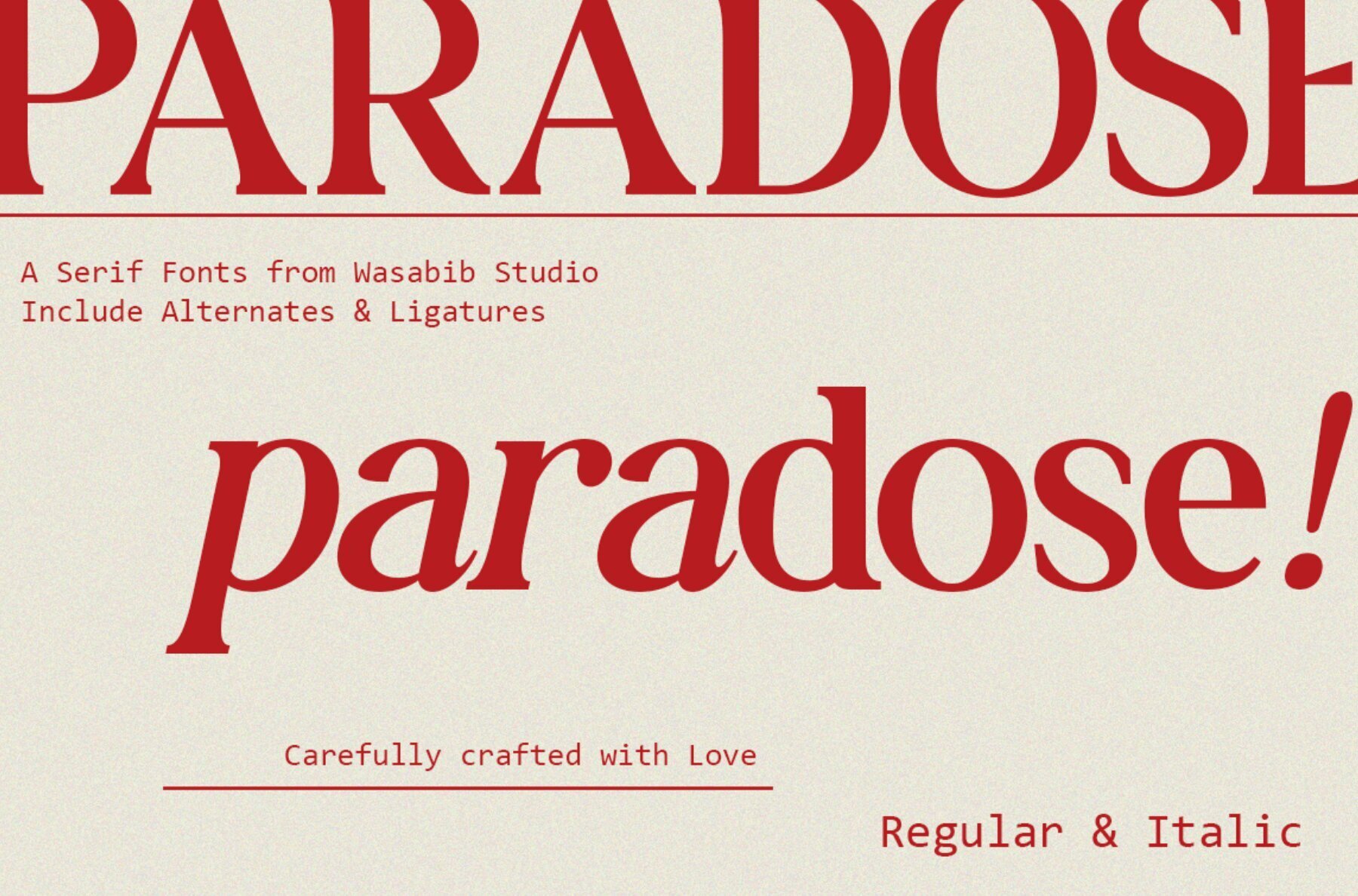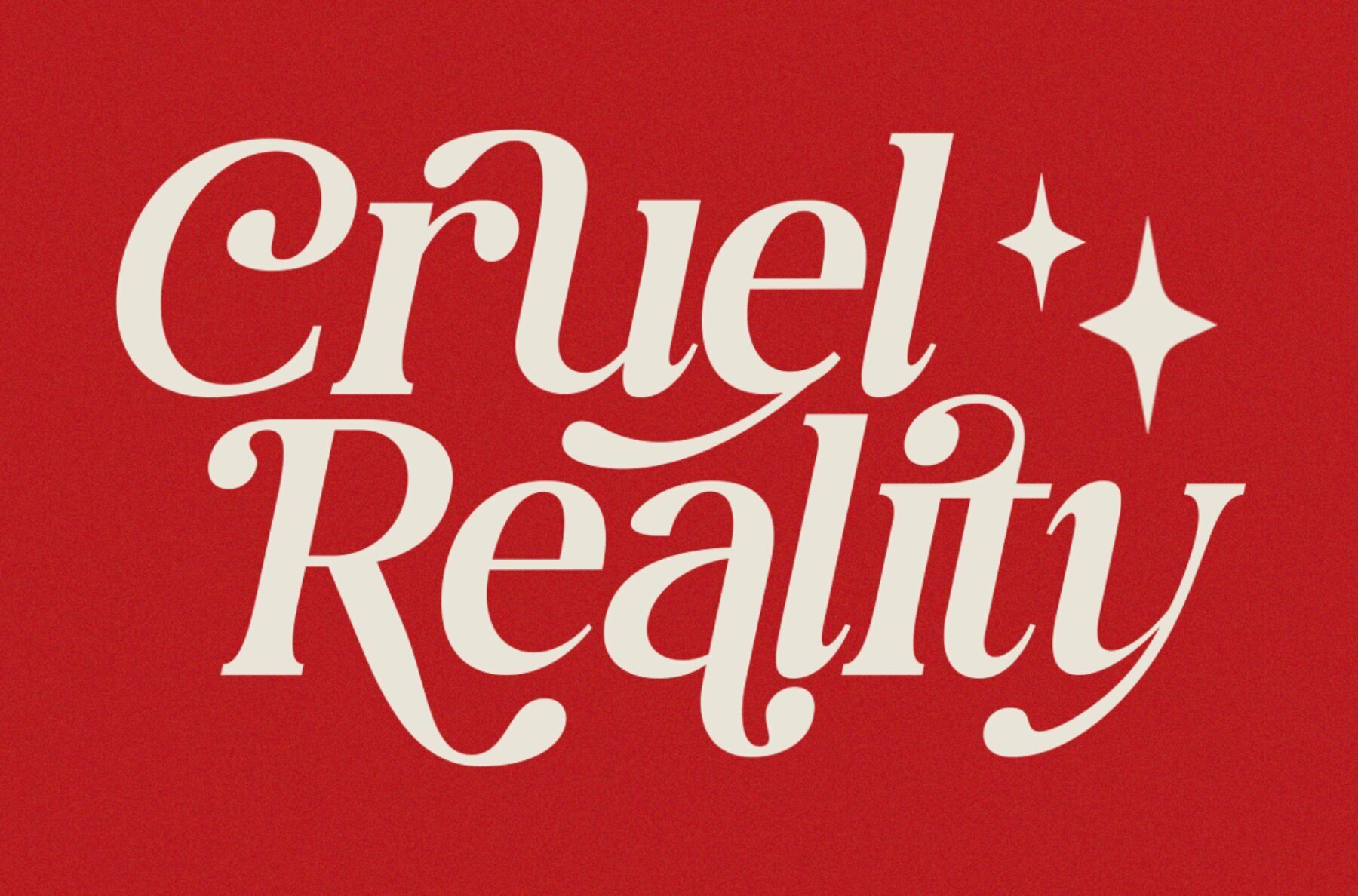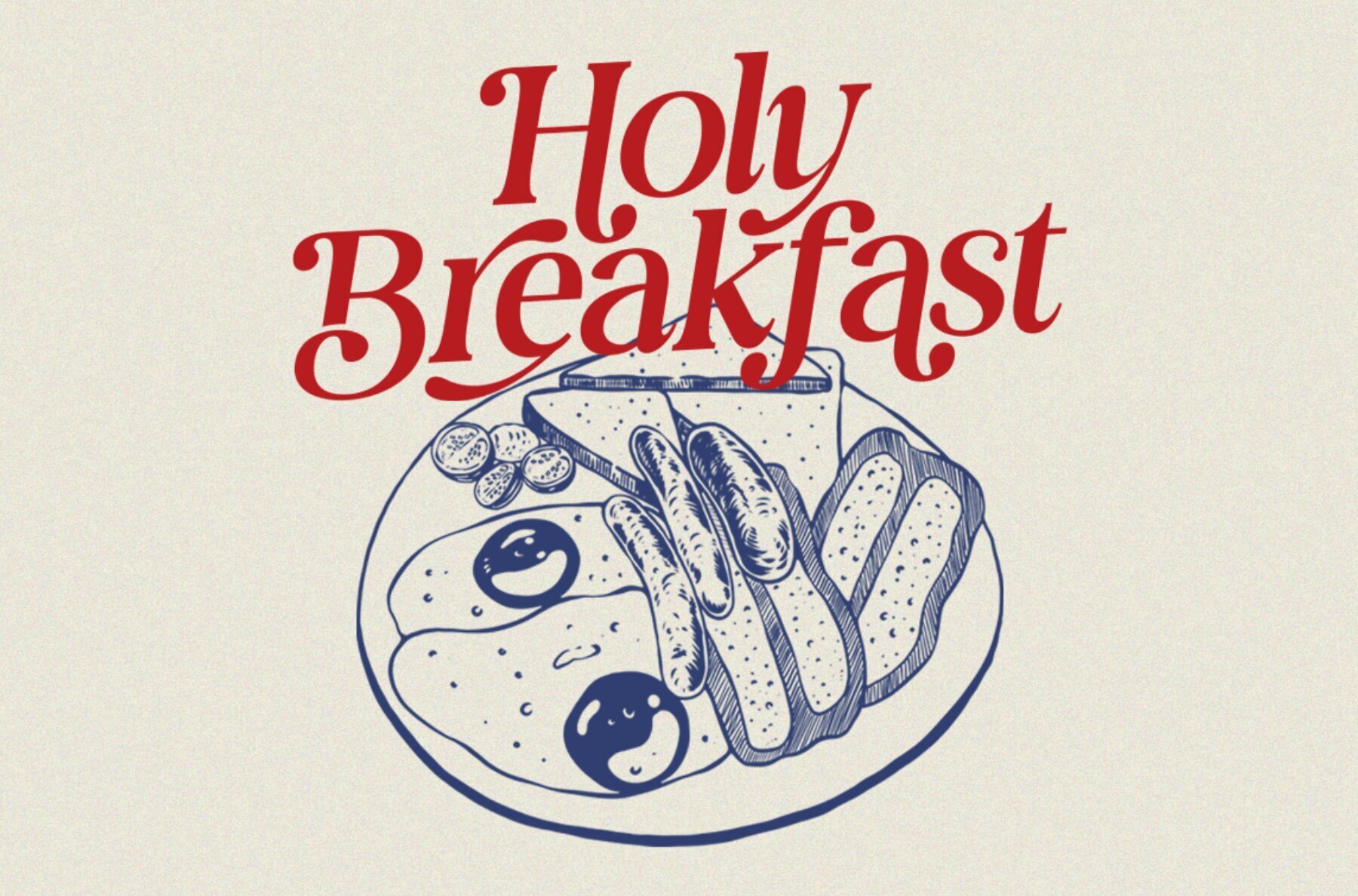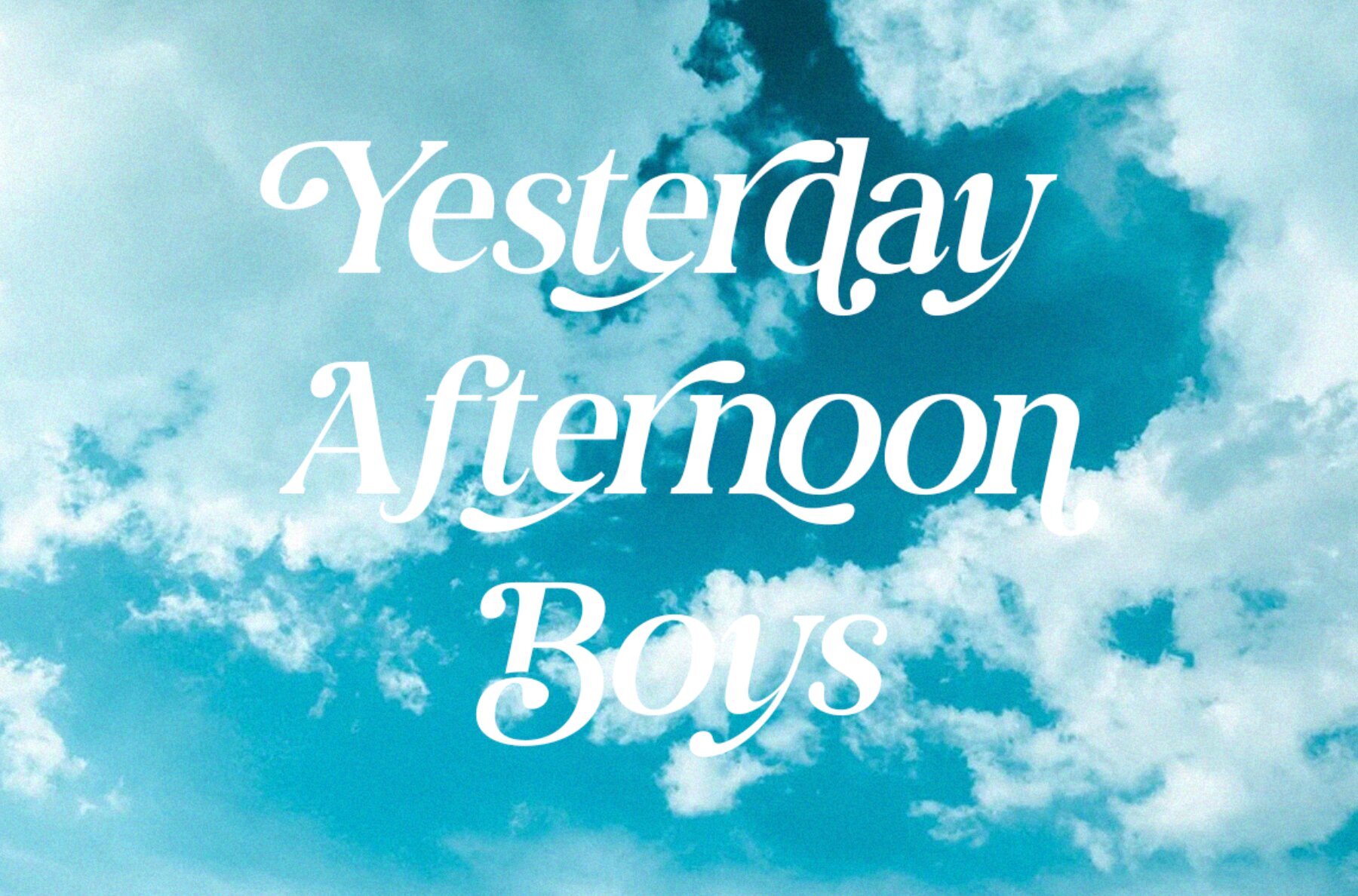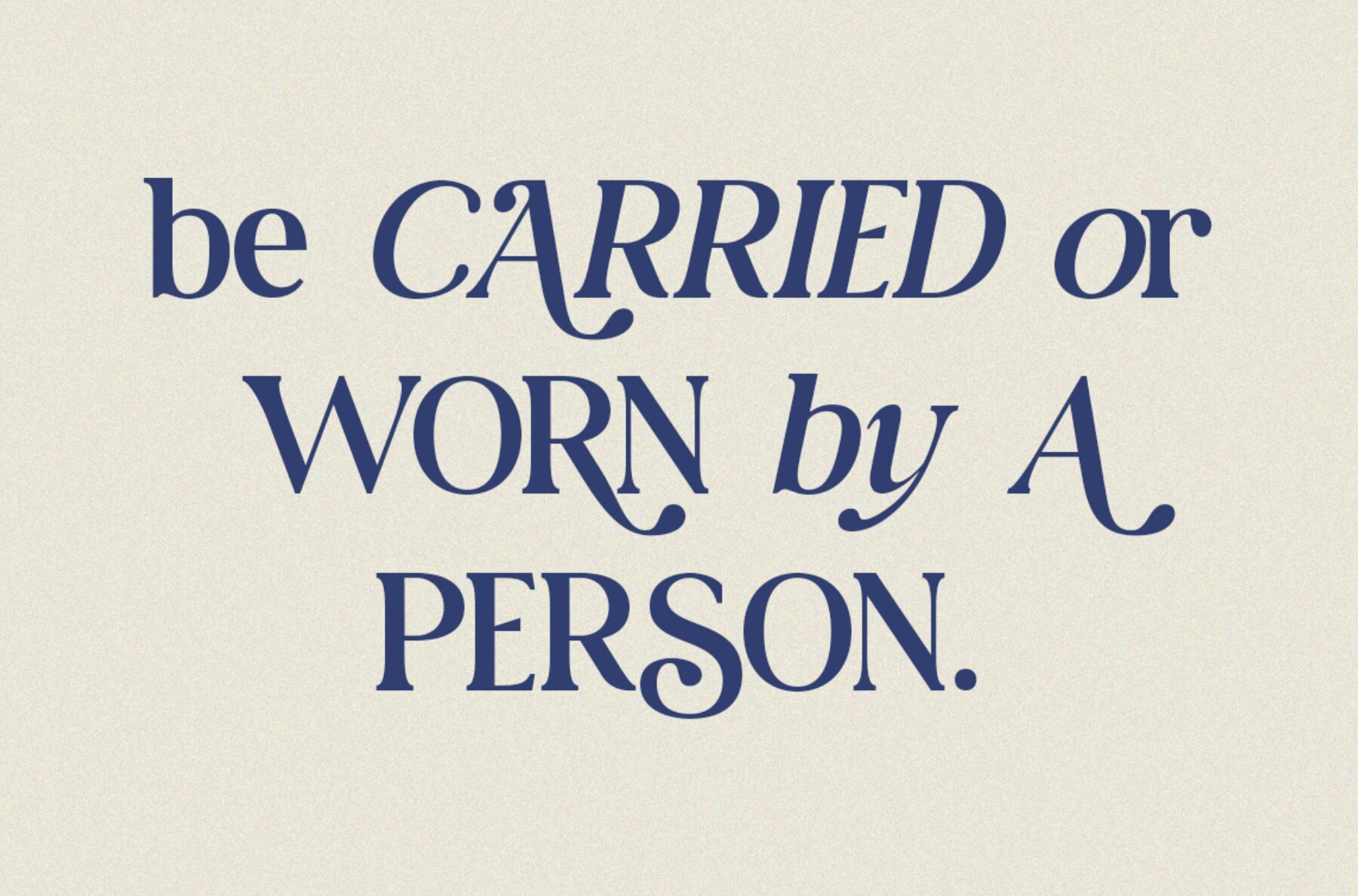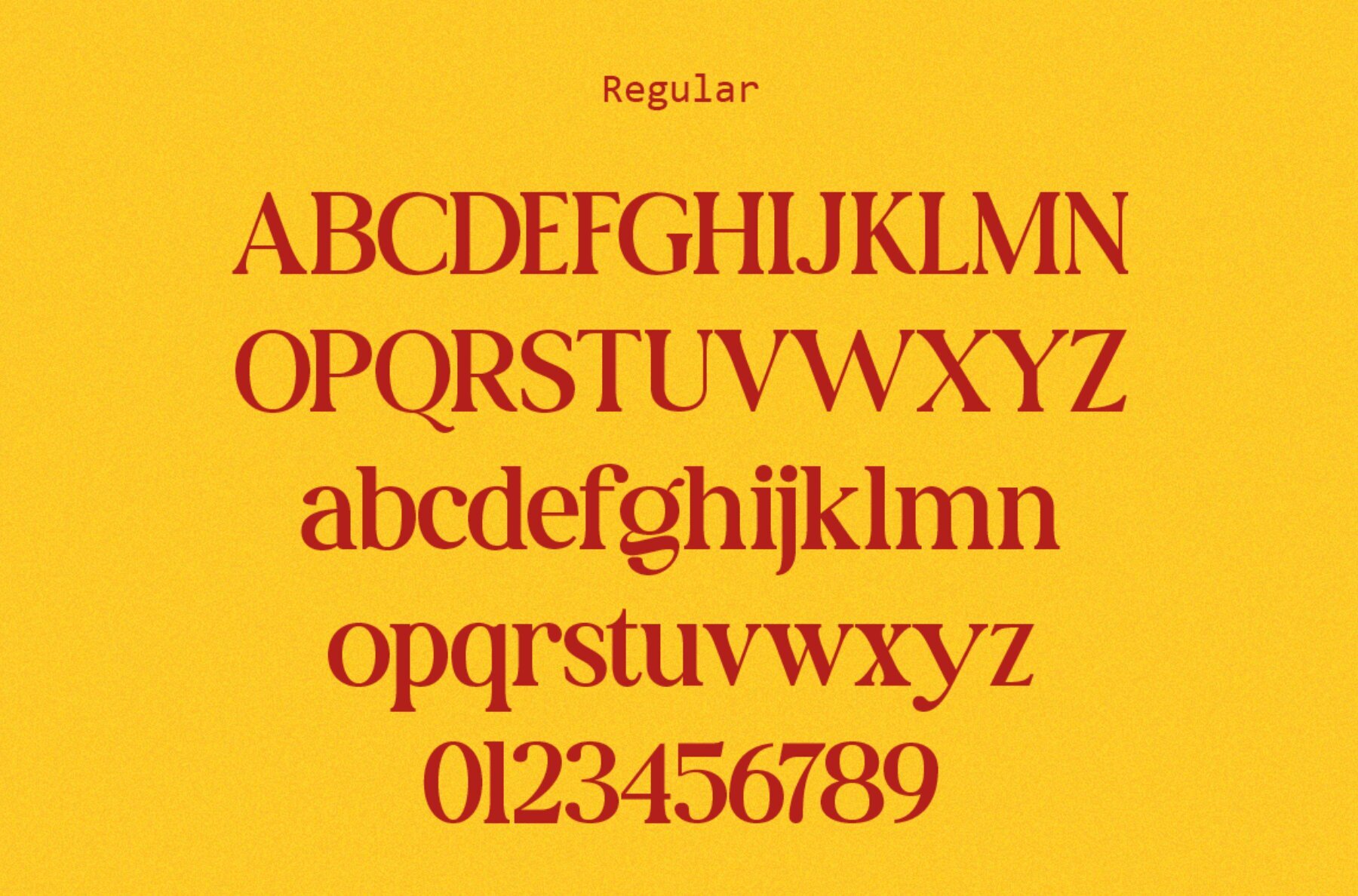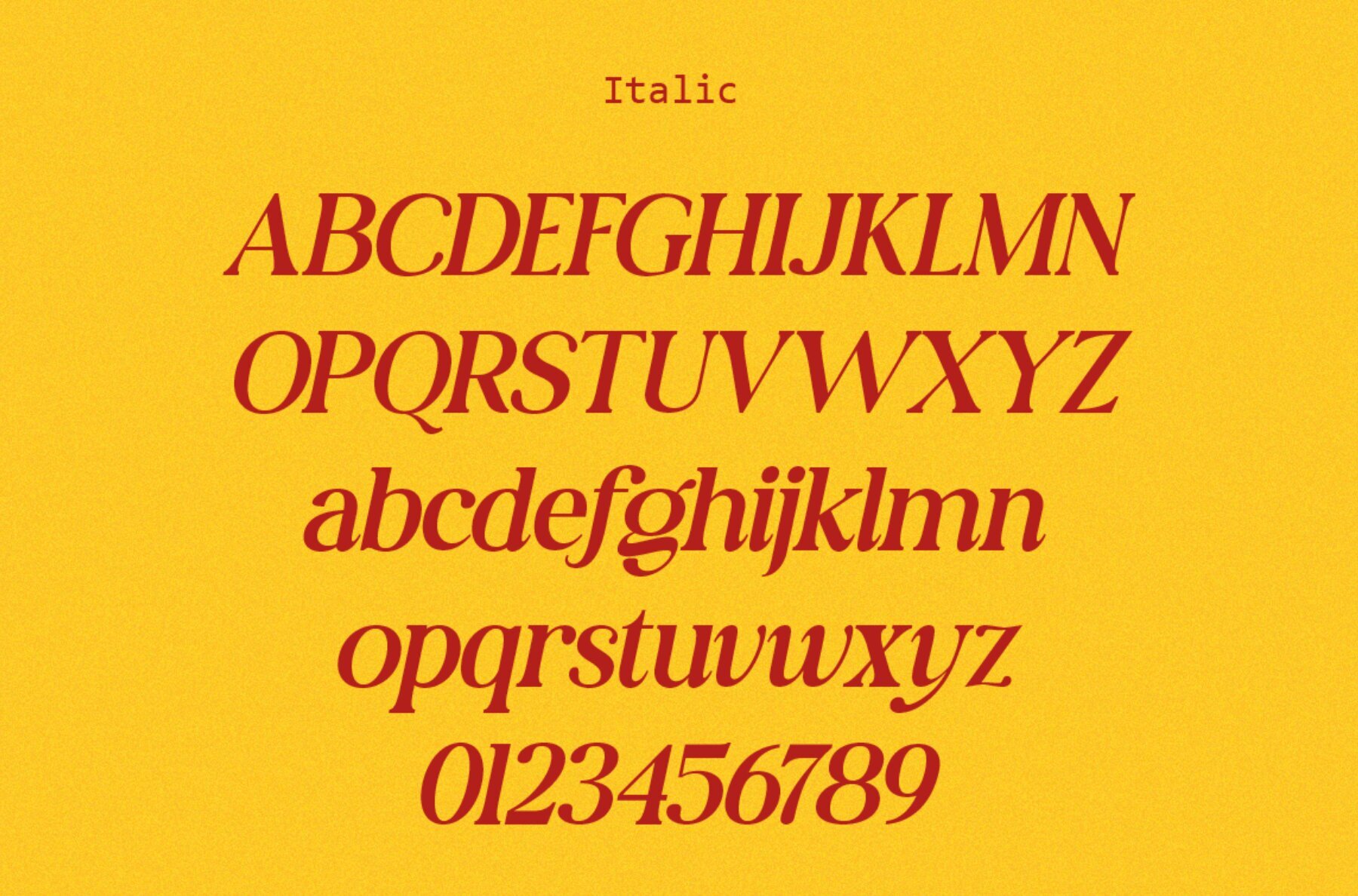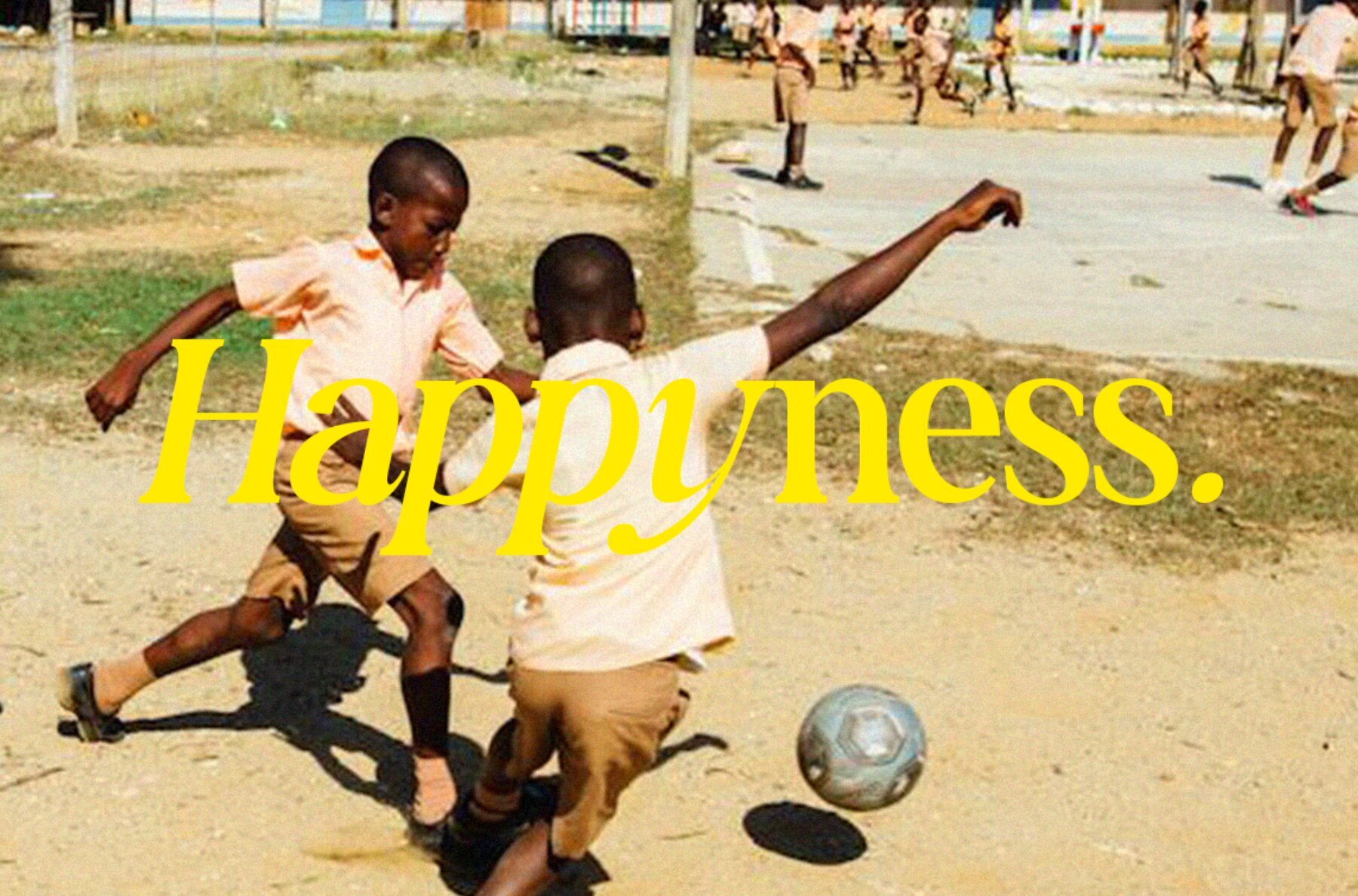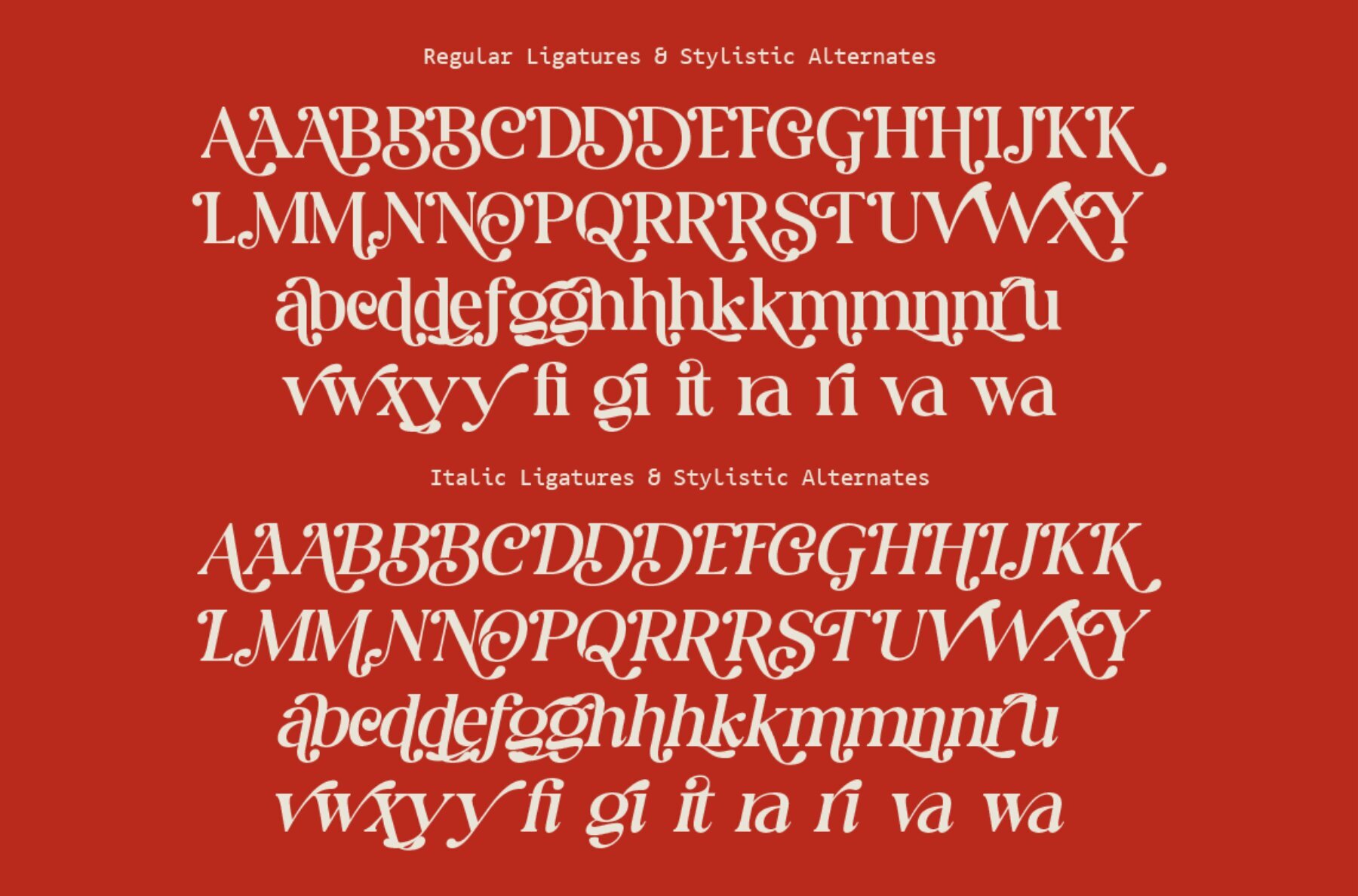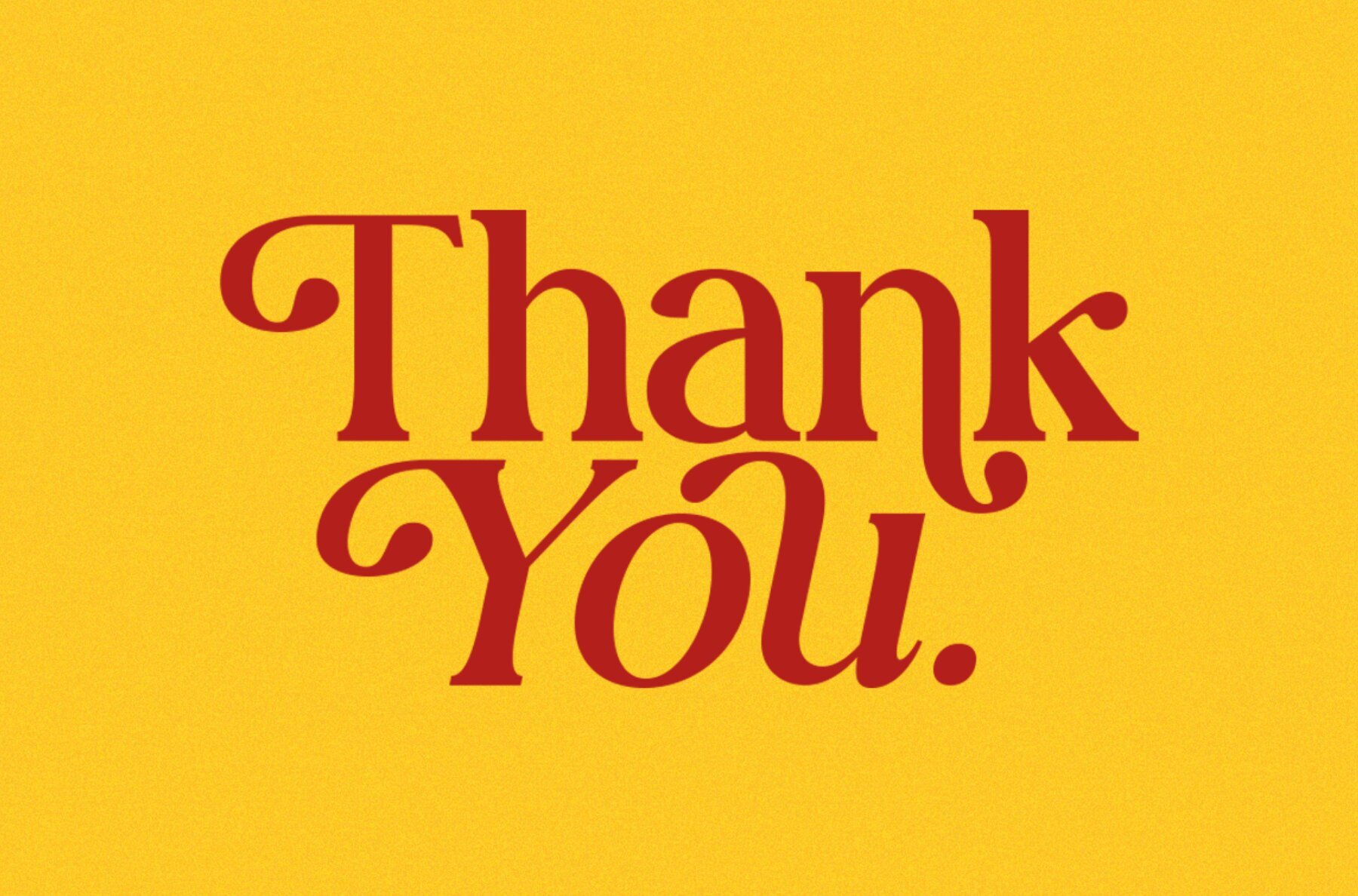
Paradose Font
WS Paradose is an elegantly designed typeface that seamlessly combines timeless elegance with contemporary aesthetics. This font is the perfect blend of traditional serif characteristics and modern sophistication, making it suitable for a wide range of projects that require a touch of refinement. The regular style of WS Paradose Serif Serif exudes a sense of familiarity and timelessness. Its clean lines and balanced proportions enhance legibility while maintaining a sense of professionalism. This style is perfect for body text, long paragraphs, or any application where readability is crucial. The italic style of WS Paradose Serif adds a subtle touch of sophistication and slant to the letterforms. Italicized text brings a dynamic quality to your designs, making it an excellent choice for emphasizing specific words or phrases. An exceptional feature of WS Paradose Serif is its extensive set of alternates and ligatures. These additional glyphs provide a variety of stylistic options, allowing you to customize the appearance of your text to suit your specific design needs. Whether you're seeking a more ornate and decorative look or a clean and minimalist approach, Classic Modern Serif's alternates and ligatures provide the versatility to achieve your desired aesthetic. This font's alternates and ligatures contribute to the overall flow and visual appeal of your typographic compositions, creating a harmonious and cohesive design. From swashes and decorative flourishes to unique letter combinations, these elements add a touch of sophistication and individuality to your text. WS Paradose Serif is a versatile and reliable font choice that works well in both digital and print media. It is perfectly suited for branding, book covers, editorial design, packaging, and any project that aims to combine classic elegance with a contemporary aesthetic.